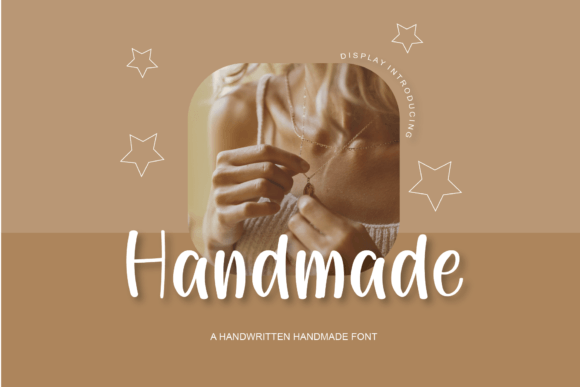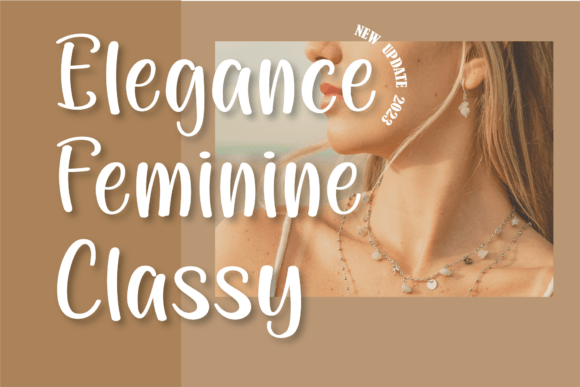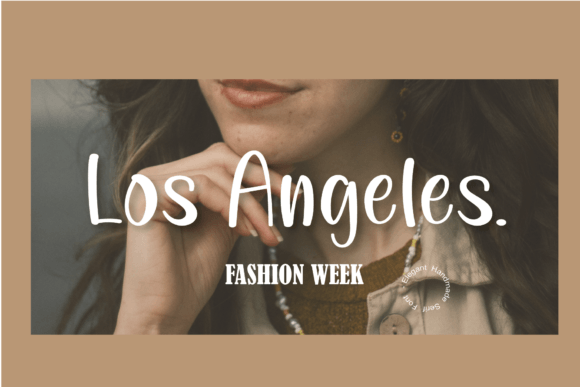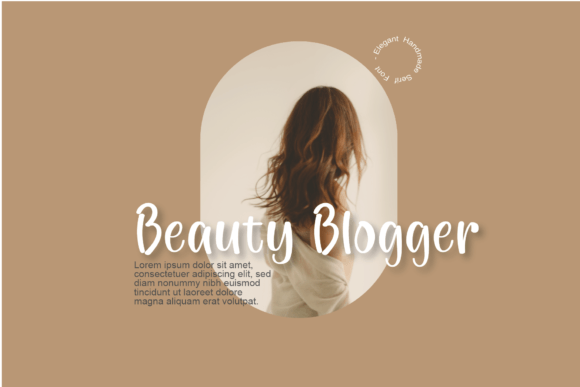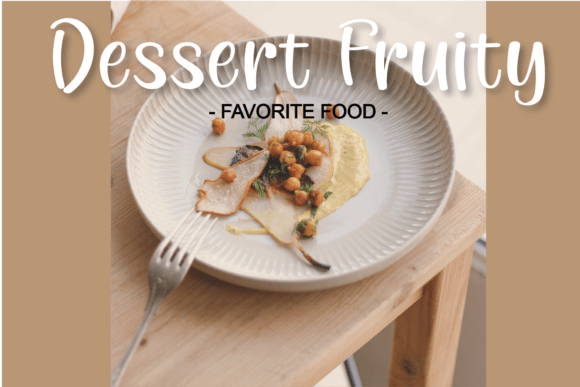
What Is Handmade Font?
Handmade is a simple handwritten font that combines a clean look with a modern feel. Designed to add personality without overwhelming your message, this typeface brings effortless style to your creative projects.
Its smooth curves and consistent strokes create a warm, approachable vibe that fits many design themes.
Handmade is incredibly versatile. Here are some ideas for where you can showcase its charm:
✅ Greeting Cards: Add a heartfelt, personal touch to birthday wishes, thank-you notes, or holiday cards.
✅ Business Cards: Make your professional identity stand out with clean, handwritten flair.
✅ Logos: Perfect for brands that want to appear modern yet approachable and friendly.
✅ Product Packaging: Bring authenticity to handmade or artisanal products.
✅ Quotes & Social Media: Highlight inspirational messages or announcements with stylish clarity.
Whether you’re designing for digital platforms or printed materials, Handmade adapts seamlessly.
Why Choose Handmade Font?
Every character in Handmade has been carefully designed to maintain readability while looking relaxed and organic. The result is a font that feels genuine and polished.
This font adds an authentic, modern touch that immediately elevates your projects. Its clean letterforms help your text look organized while retaining a warm, handwritten feel.
The simplicity of Handmade ensures your words remain the focus while giving them a stylish backdrop. It’s a perfect choice for both personal and professional projects that need a hint of sophistication.
Handmade is more than just a handwritten font—it’s a modern design essential. Whether you’re working on branding, packaging, event materials, or online content, this font adds character and clarity.